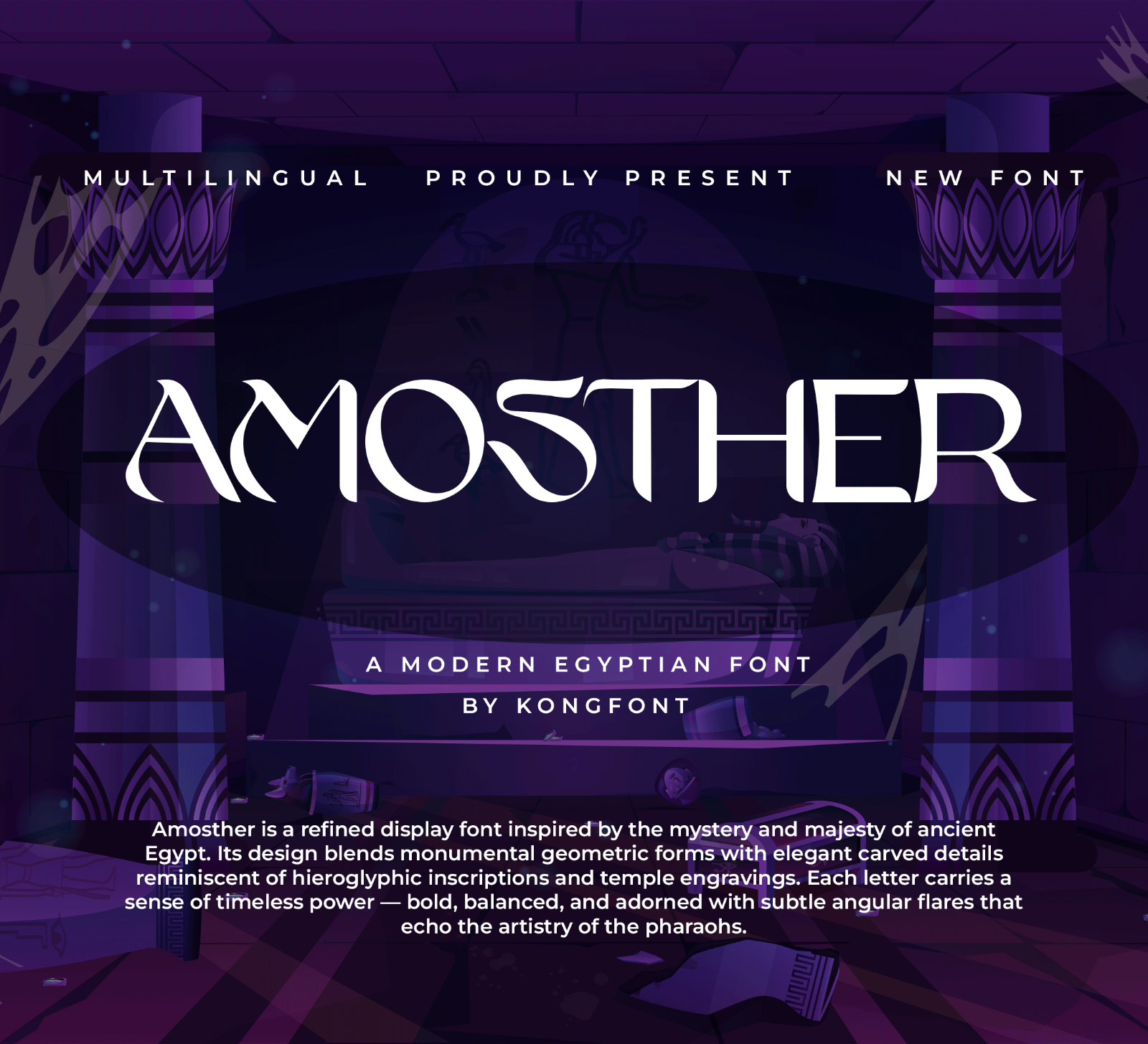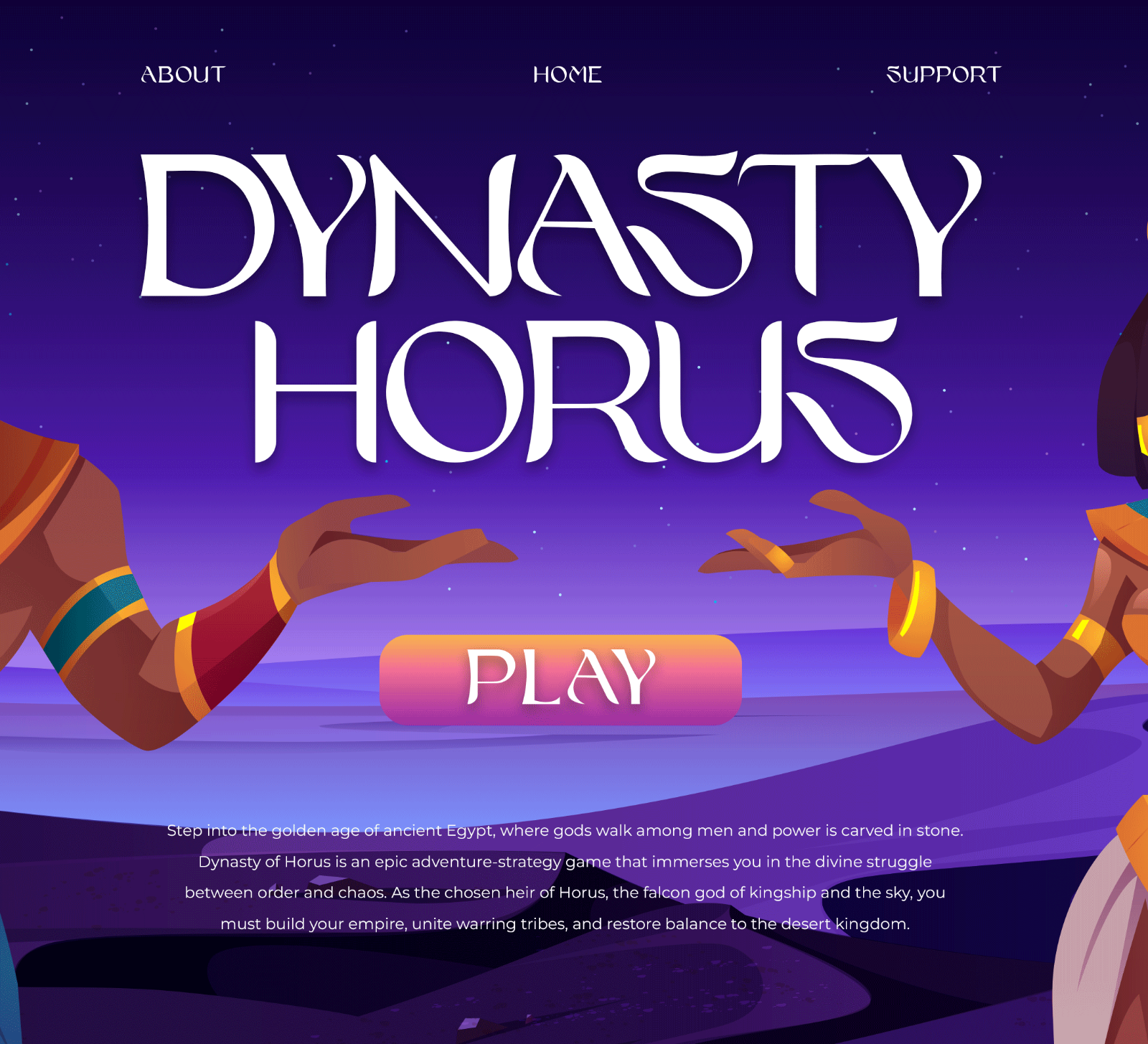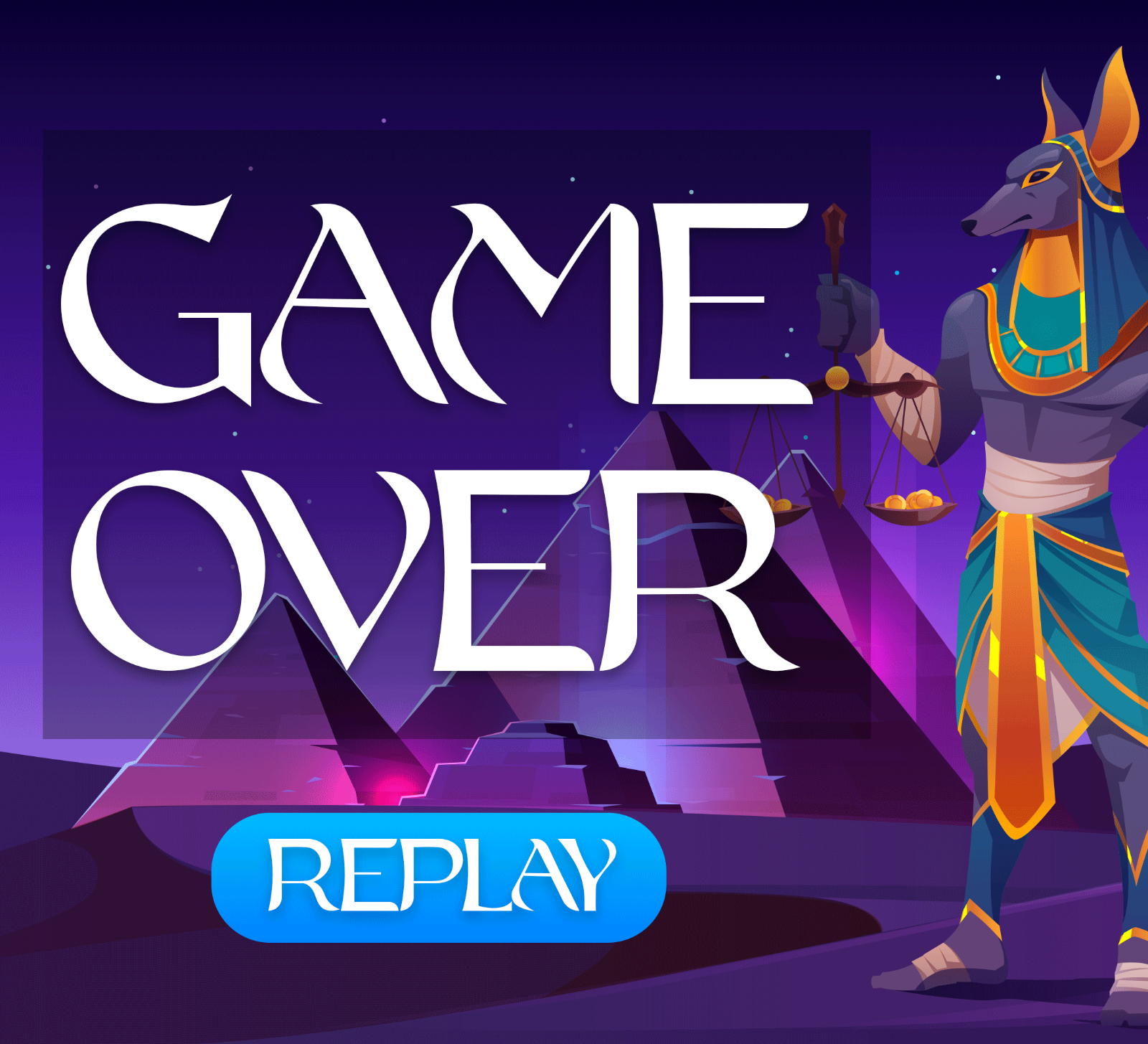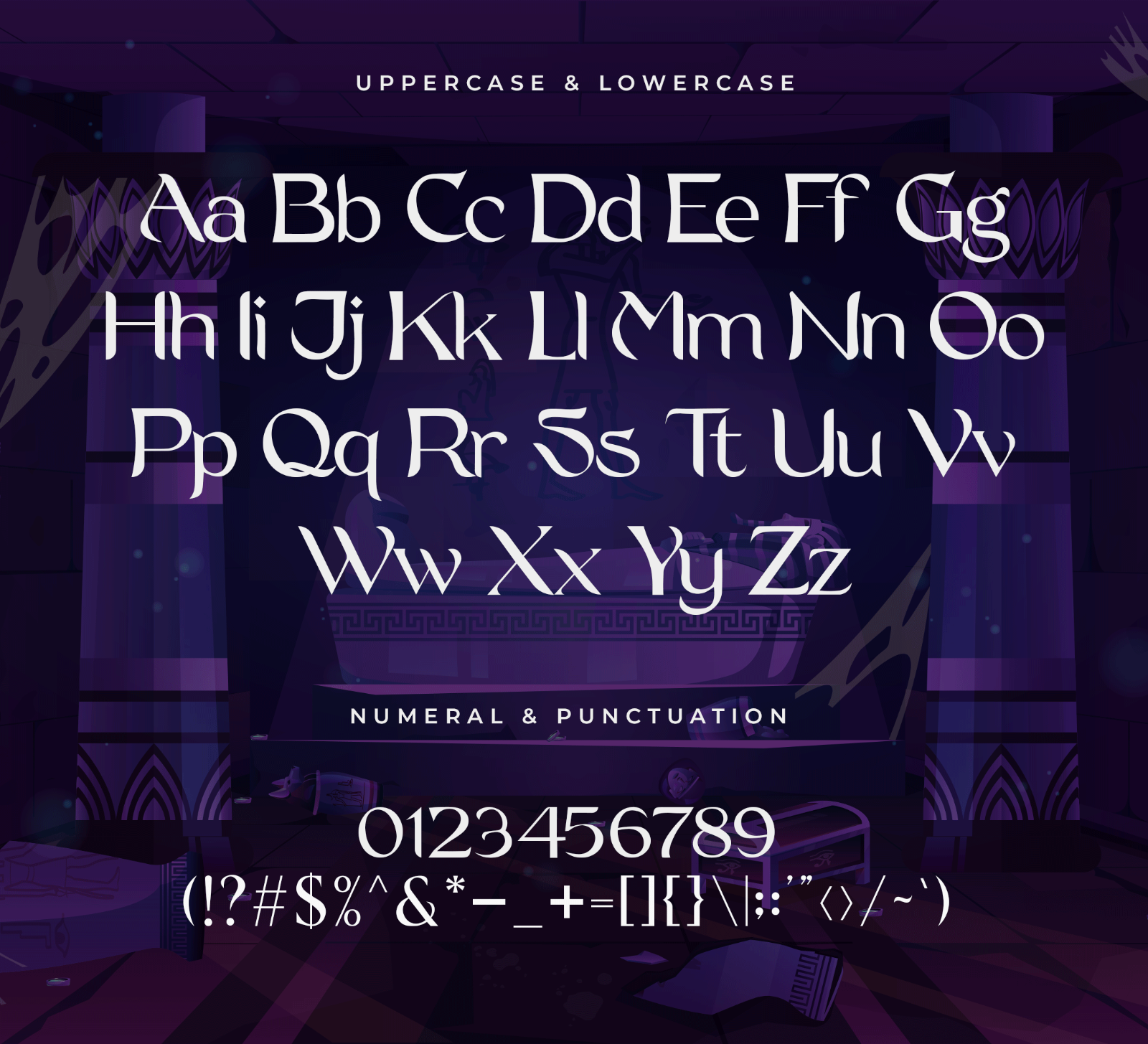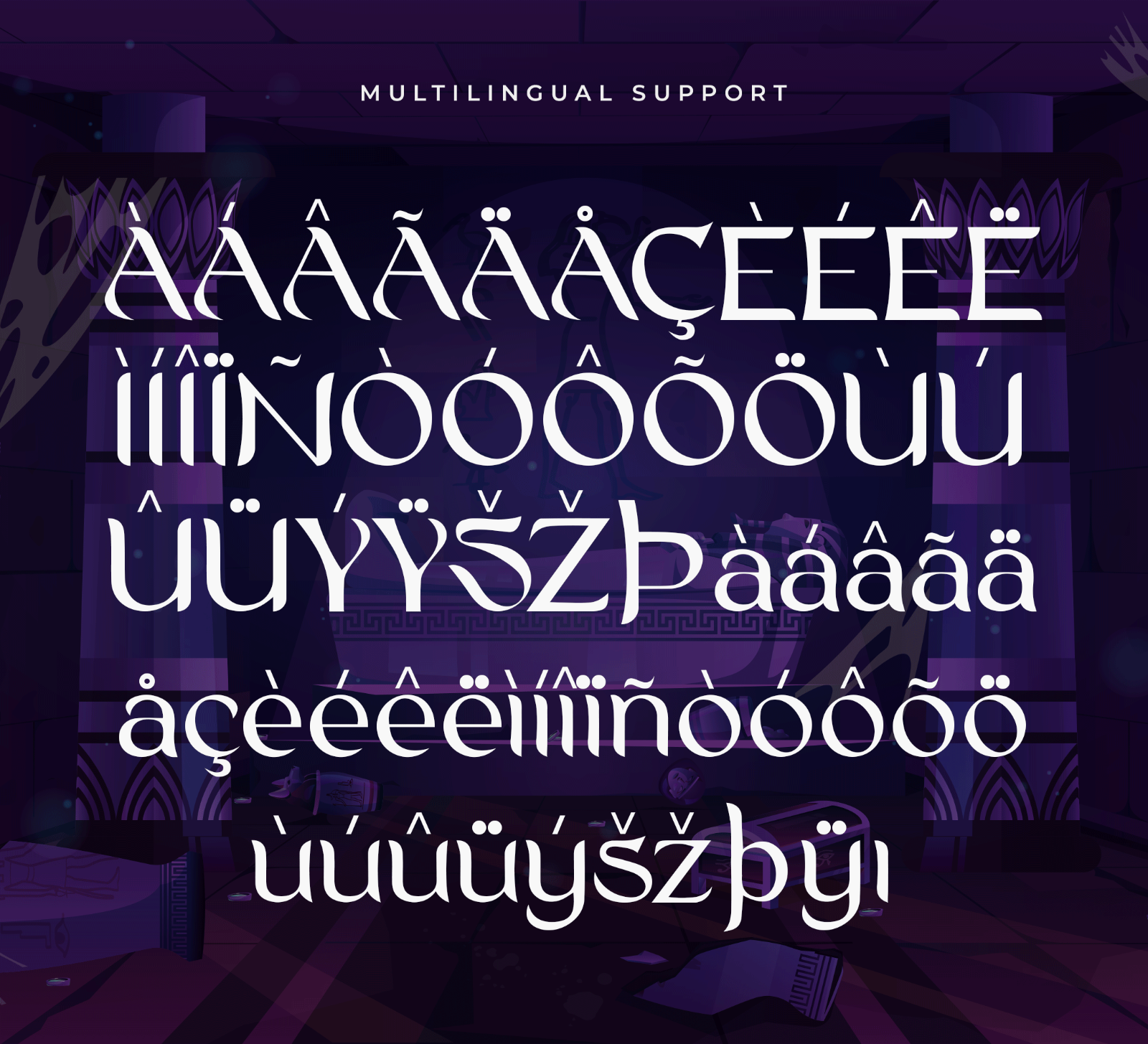
Amosther is a modern Egyptian-inspired serif font with bold letterforms, distinctive curves, and a strong display style. Its classic yet contemporary character makes every headline stand out with a unique and memorable look.
• Branding
• Logos
• Headlines
• Business cards
• Blog headers
• Quotes
• Packaging
• Creative typography